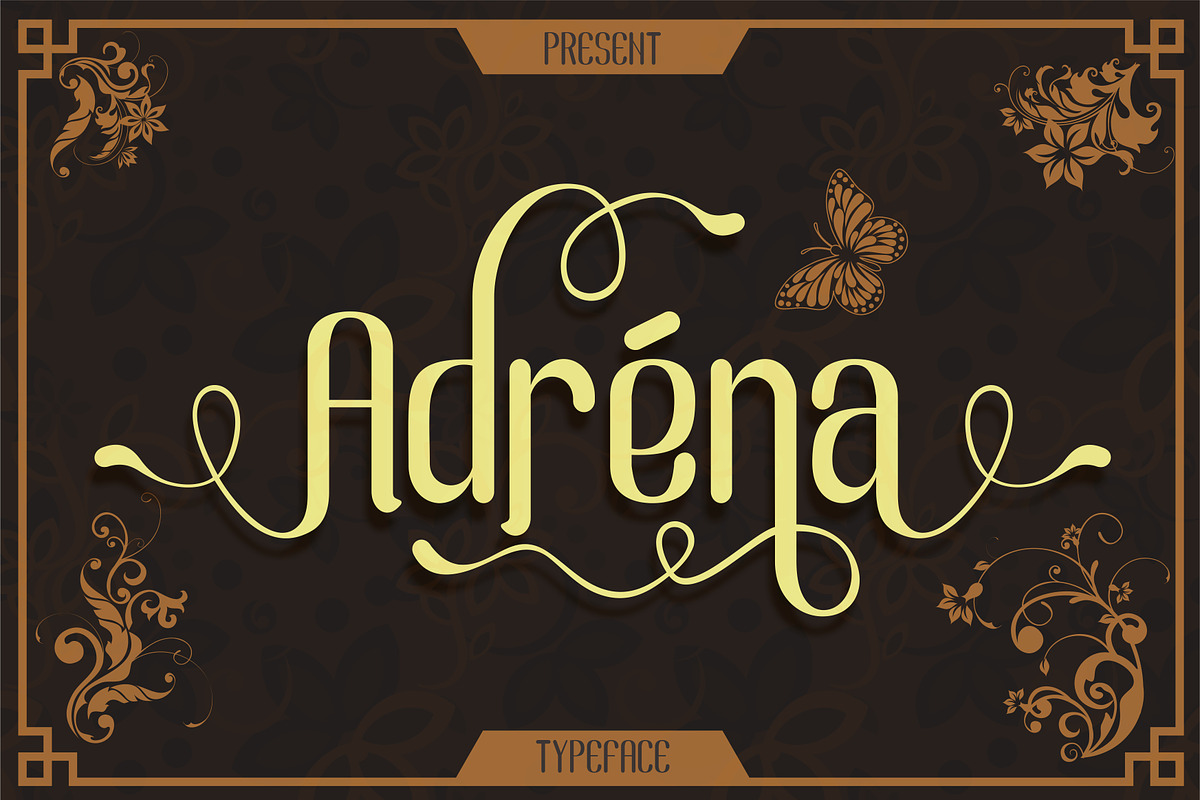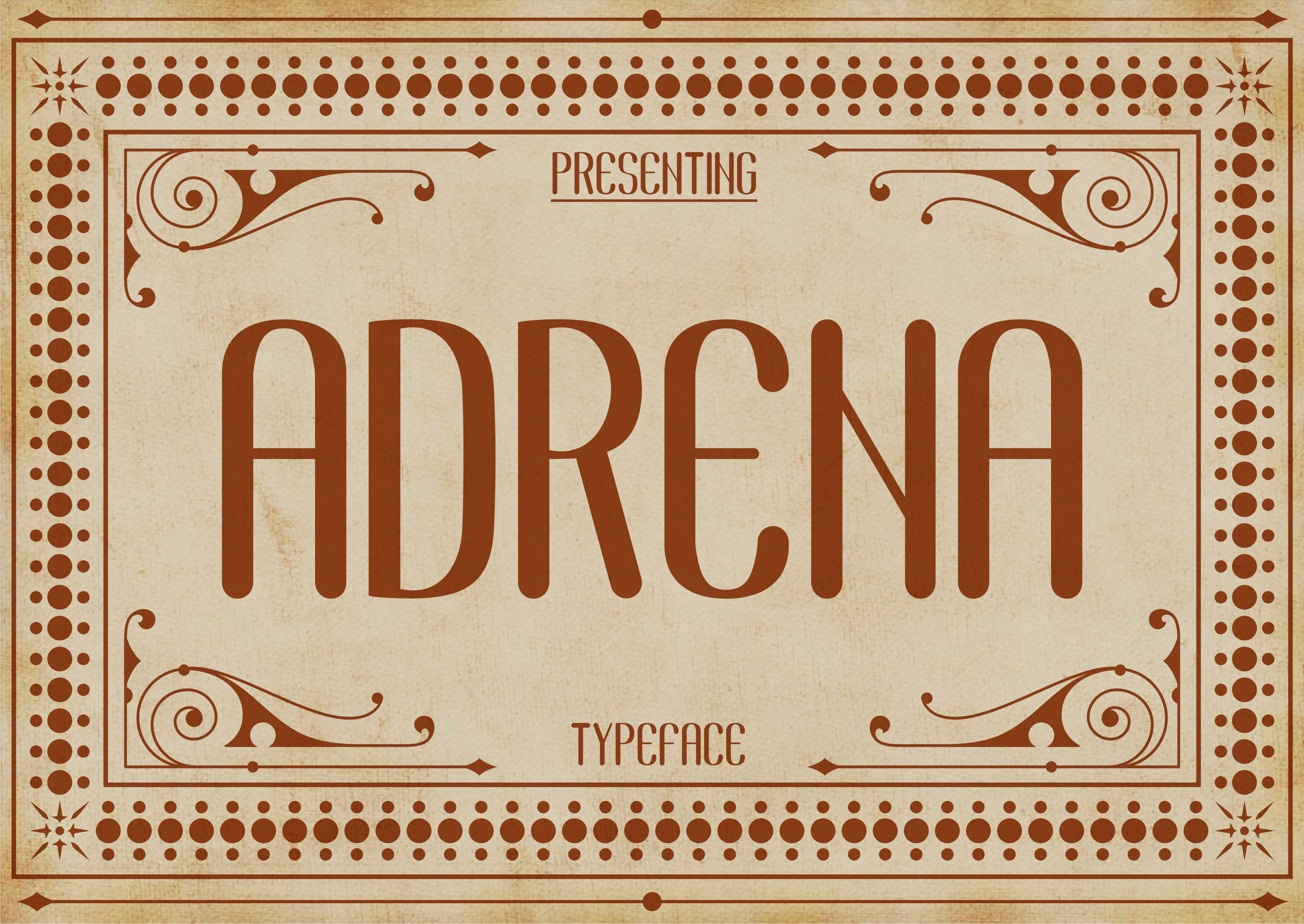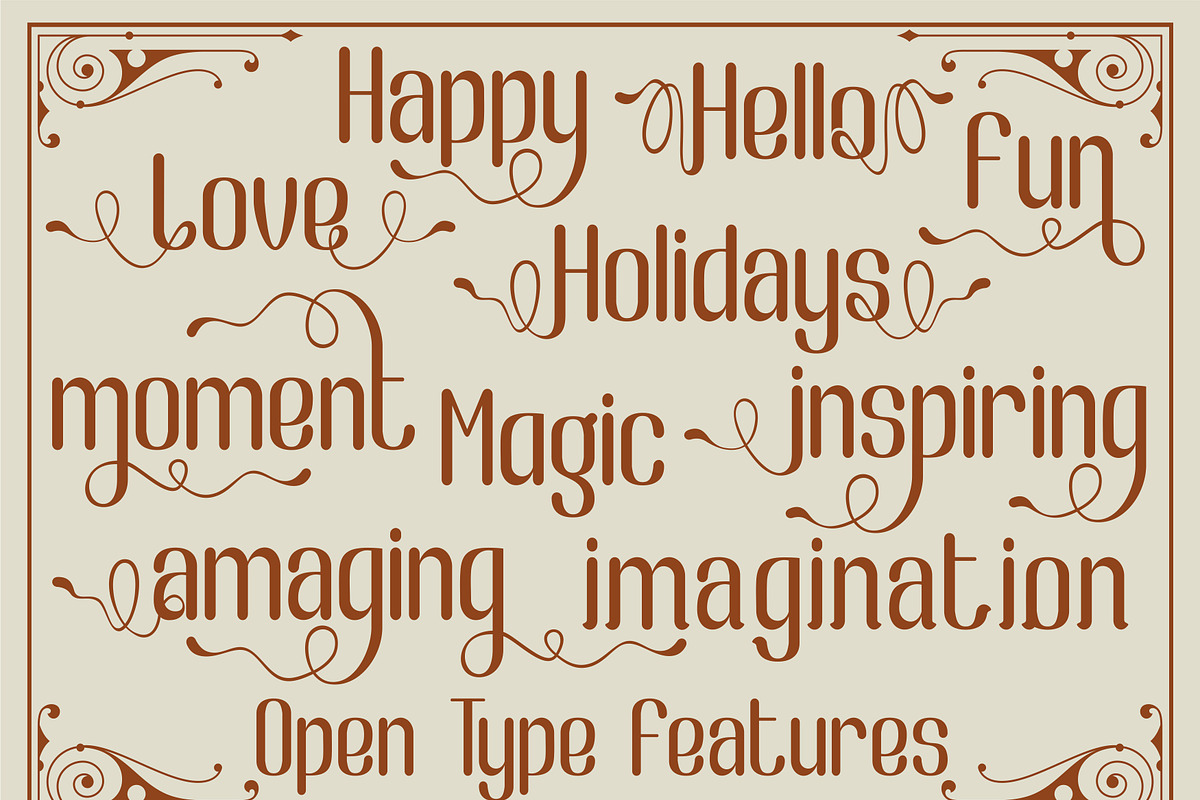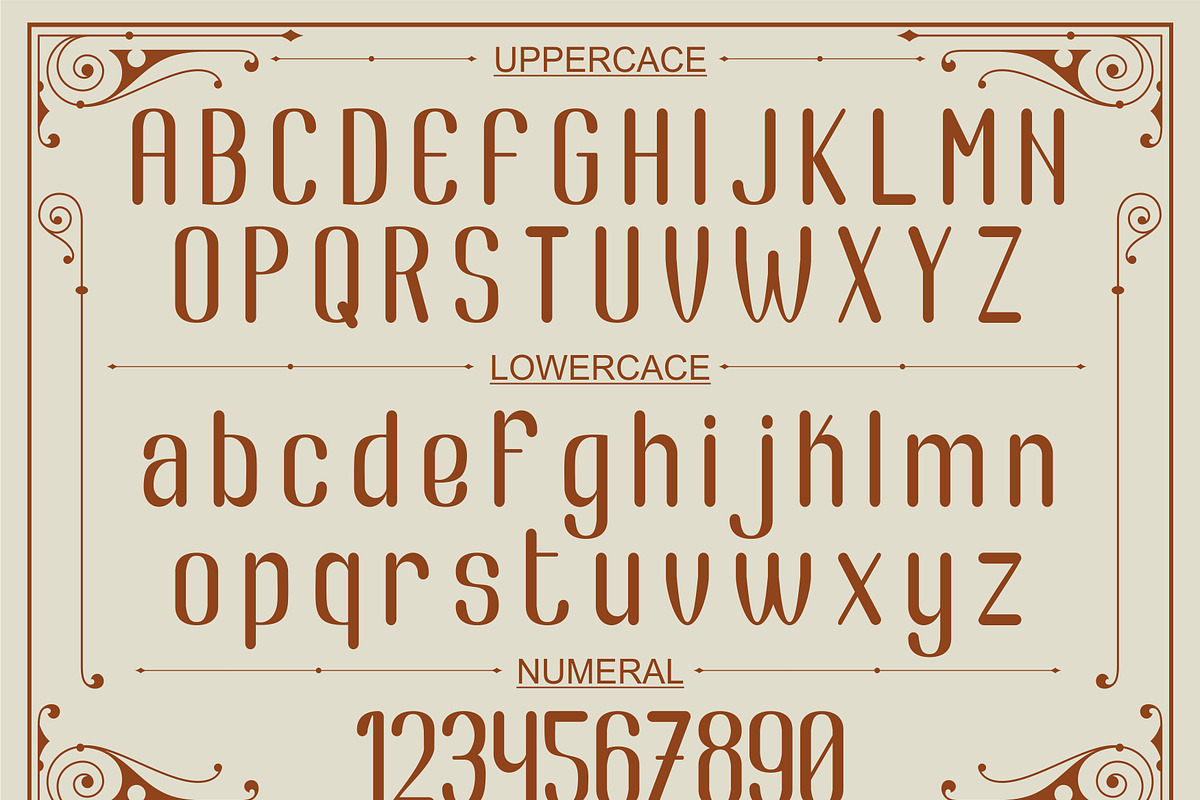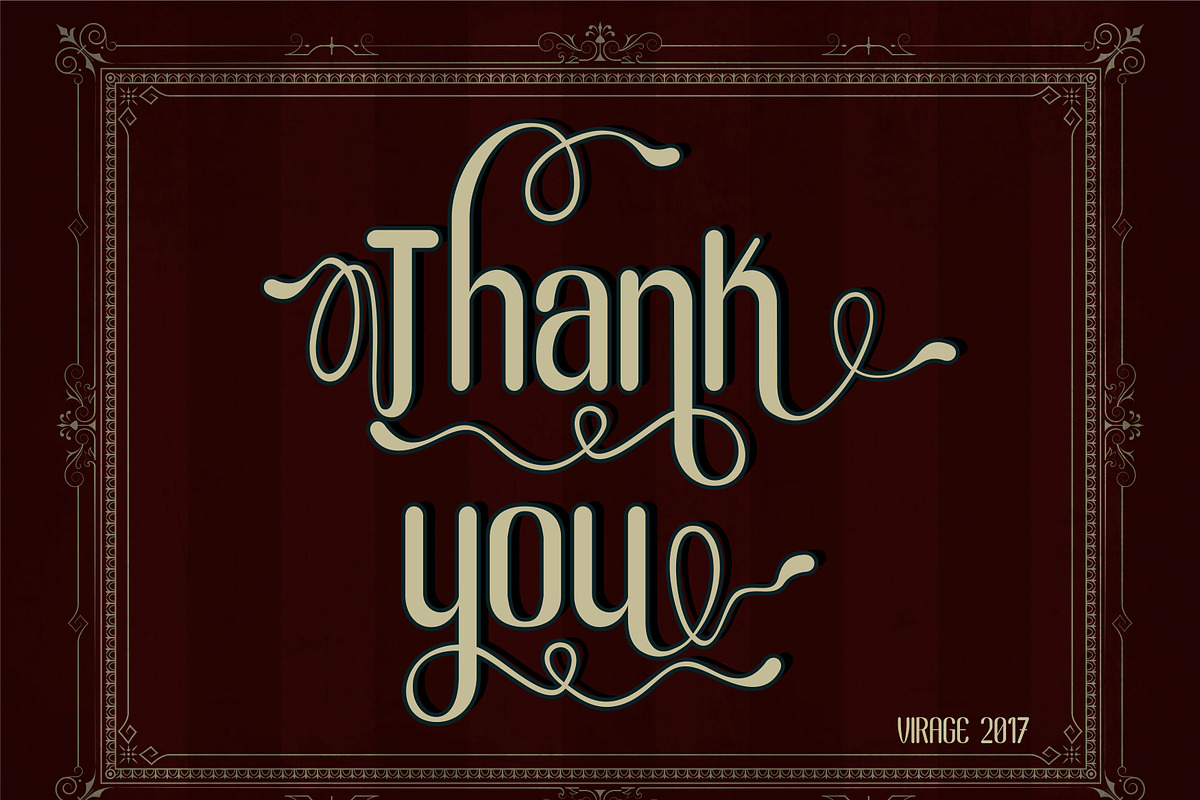
Adrena - Display Typeface
Adrena is a retro display font with a subtle and elegant old-style touch. Equipped with several unique alternates, this font presents a friendly and bold vintage impression. Suitable for projects that require a classic charm that stands out but remains soft, such as posters, packaging, or branding with a retro feel that is not too over the top.